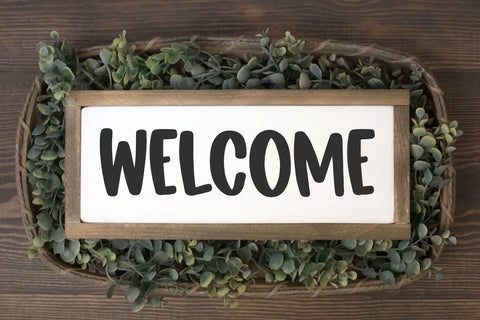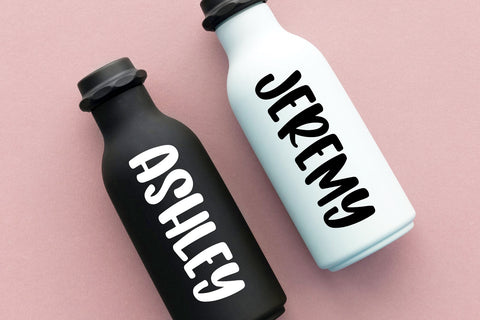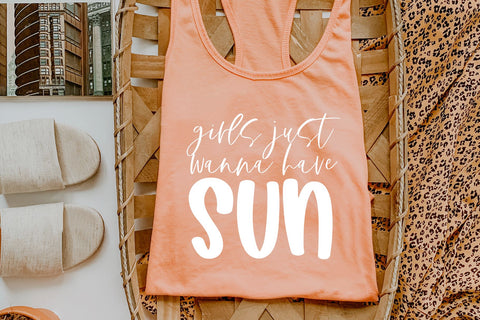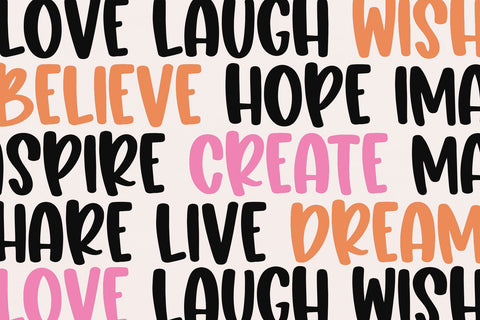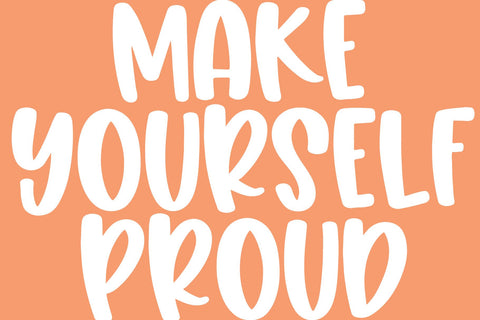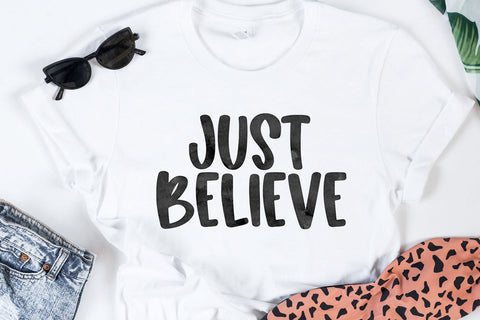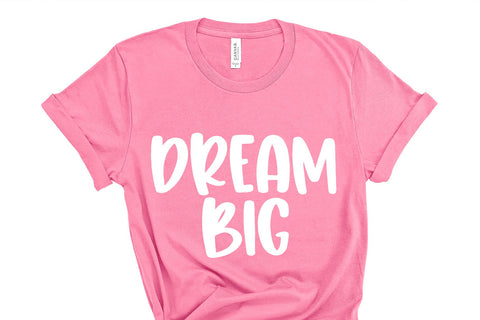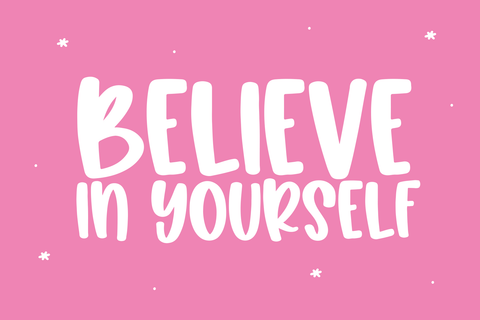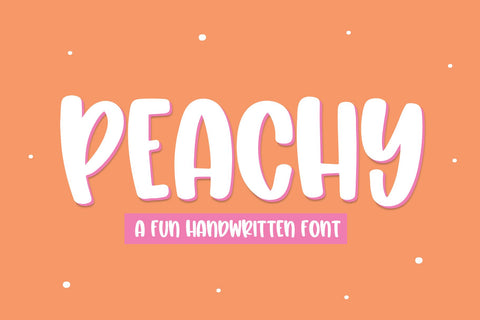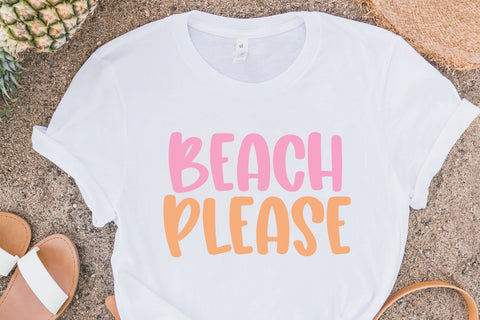
Peachy - Fun Handwritten Font
Peachy is a fun handwritten font!
The capital/lowercase letters are the same.
This font is perfect for quotes, shirt designs, websites, branding, children's designs, svg designs, blogs, logos, invitations and more!